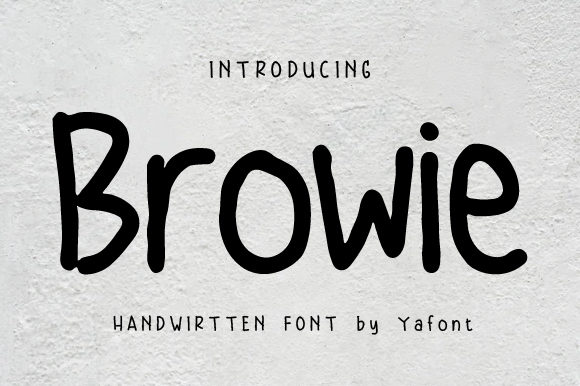
Browie
About Browie Font
Browie is a cute and friendly handwritten font. A little bit quirky, this font looks incredibly adept on a wide variety of contexts!